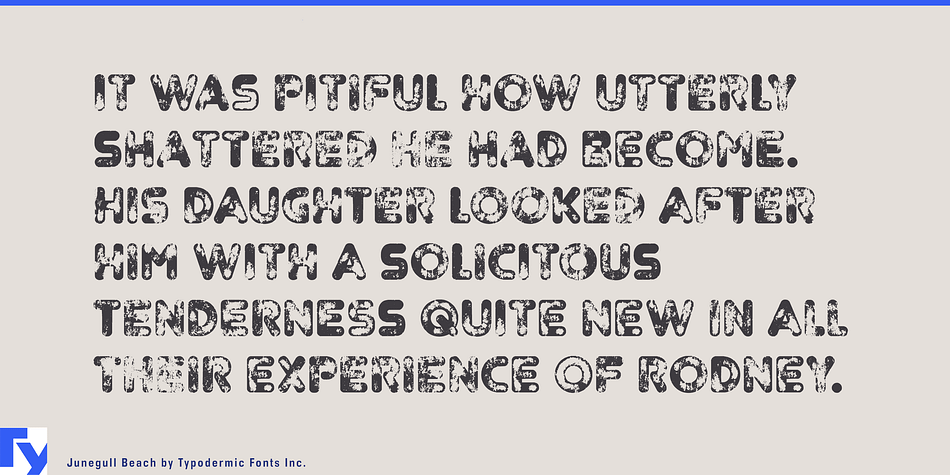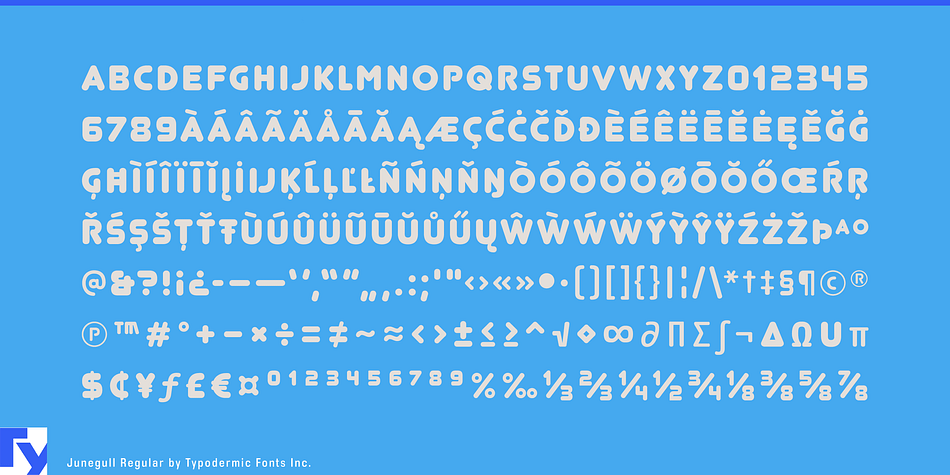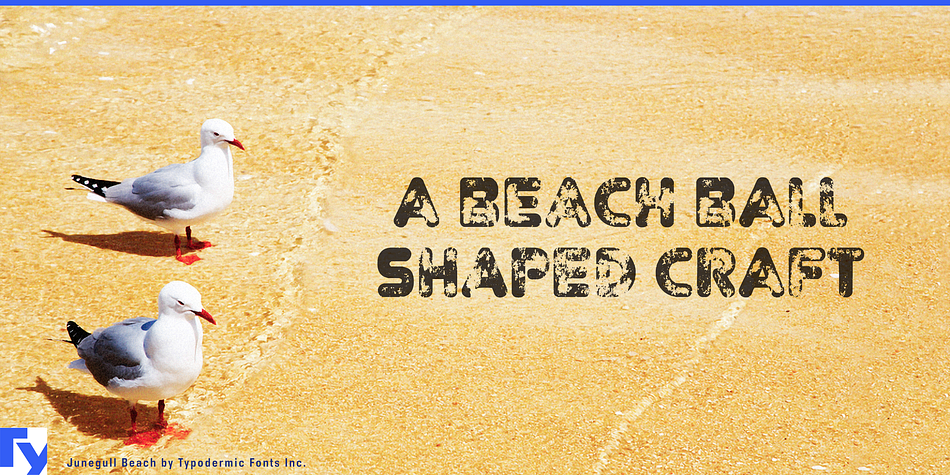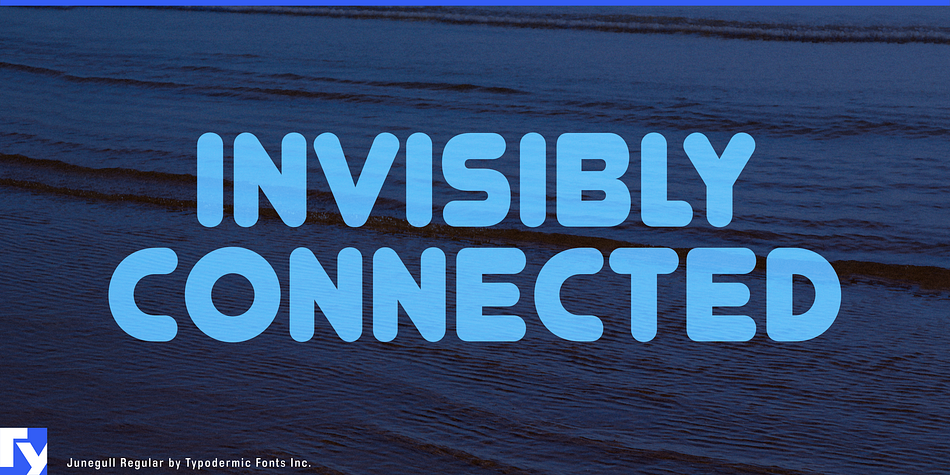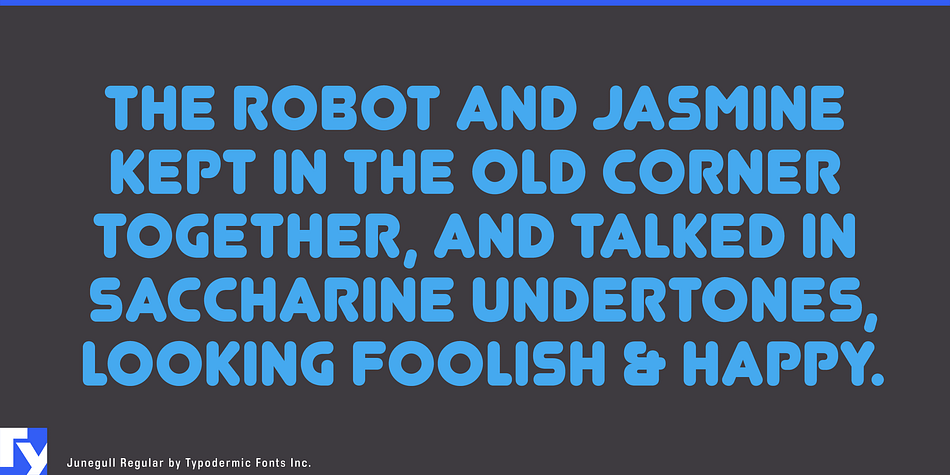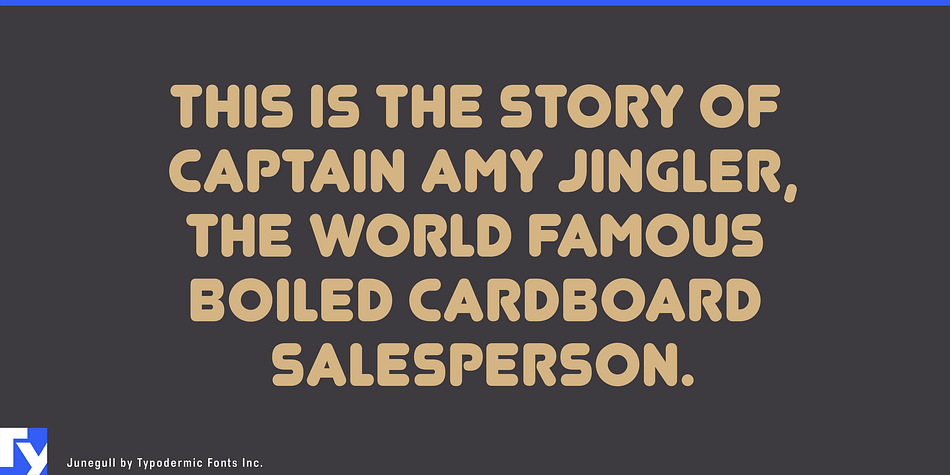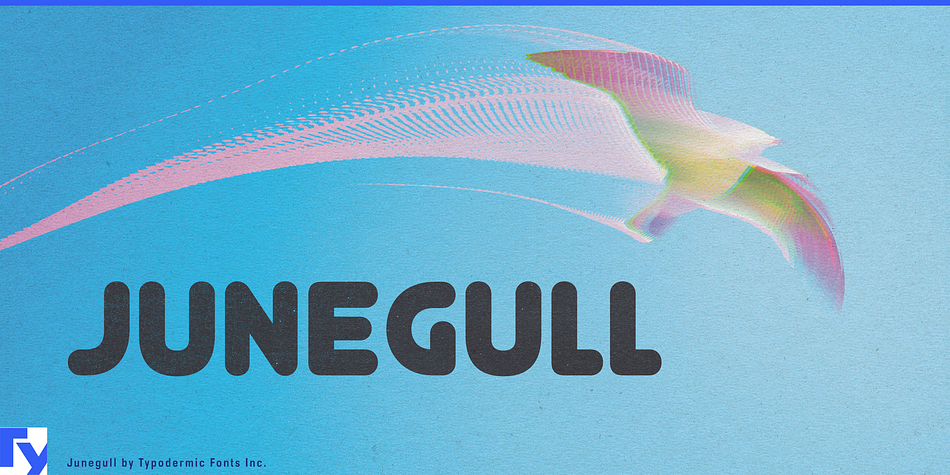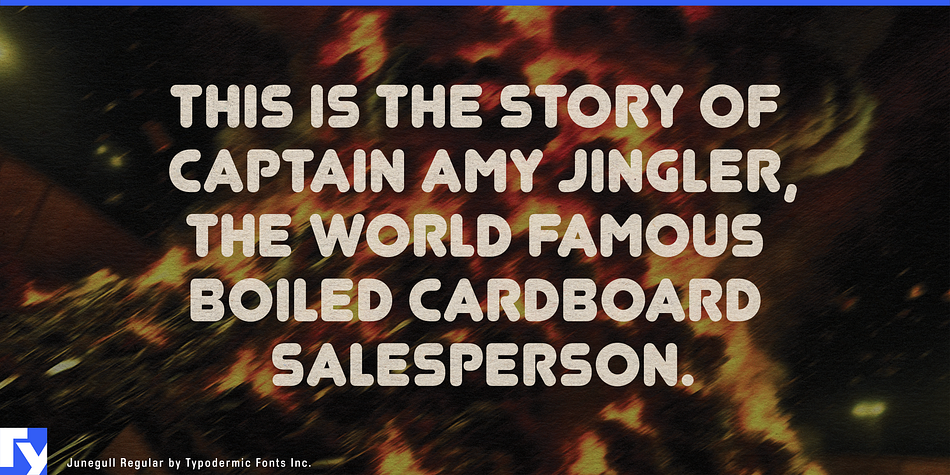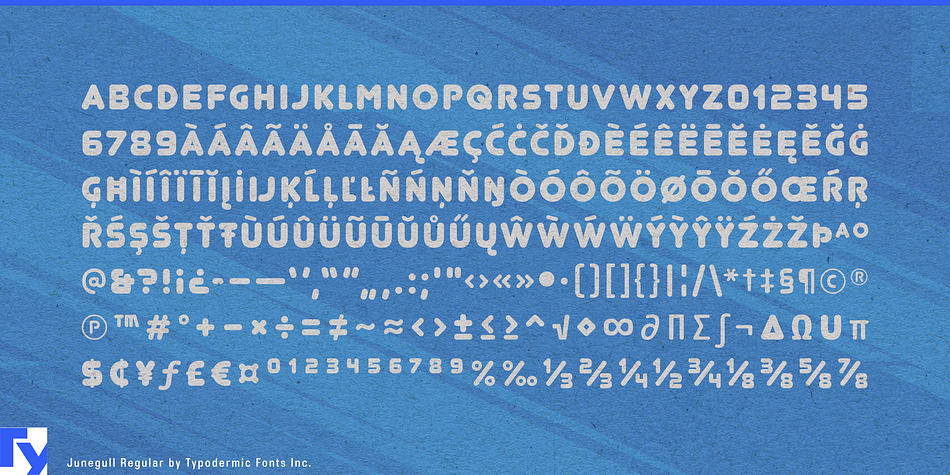
Junegull is a grunge, display sans and kids font family. This typeface has two styles and was published by Typodermic Fonts Inc.
Junegull is a smart, hugworthy, allcaps rounded sans.
She’s technological, yet soft . . . like a killer robot teddy bear. Numeric ordinals, fractions and loads of math symbols make Junegull you new squishy pal.
Junegull Beach is Junegull’s raunchy sister. When you’re using Junegull Beach in an OpenType savvy application, common letter pairs will be automatically replaced by custom pairs for a more realistic, sandy effect.